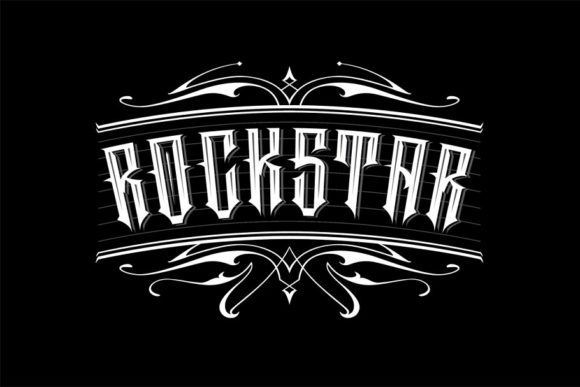
Introducing the Rockstar Font, the best font for music cover designs! Created by the talented MHM STUDIO, this font family is the perfect choice for those who want to make a bold statement with their designs.
The Rockstar Font is a blackletter font, which means it is bold, powerful, and has a strong presence. Its sharp edges and intricate details make it stand out from other fonts in its class. When you use this font, your designs will have an authentic, timeless feel that will make them unforgettable.
One of the best things about the Rockstar Font is how versatile it is. Whether you are creating a flyer for a concert or designing album artwork, this font will make your designs come alive. It is perfect for any project that needs a touch of creativity and excitement.
Another great thing about the Rockstar Font is that it is incredibly easy to use. It comes in a variety of styles and weights, so you can choose the one that best suits your needs. And because it is a high-quality font, you can use it on any project without worrying about it looking pixelated or blurry.
But don't just take our word for it. The Rockstar Font has already been used by countless designers and musicians to create stunning visuals. It has been praised for its unique style and its ability to capture the essence of rock and roll.
In conclusion, if you are looking for a font that will help your designs stand out, the Rockstar Font is the perfect choice. Its bold and authentic style will make your work unforgettable, and its versatility makes it suitable for any project. So what are you waiting for? Add the Rockstar Font to your collection today and let your creativity run wild!